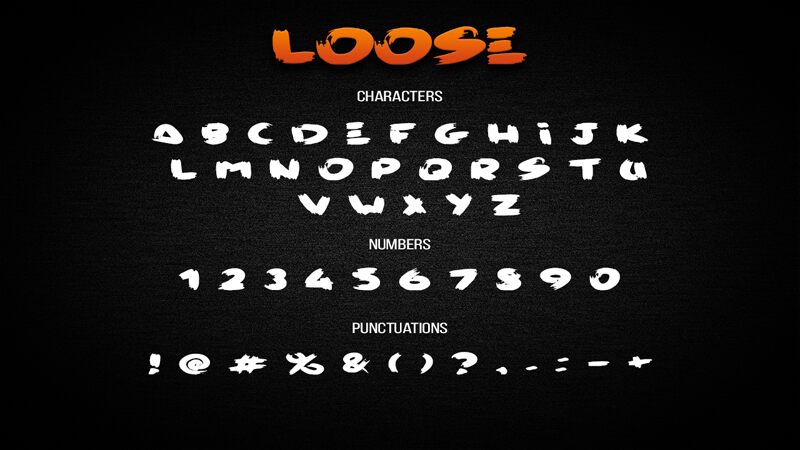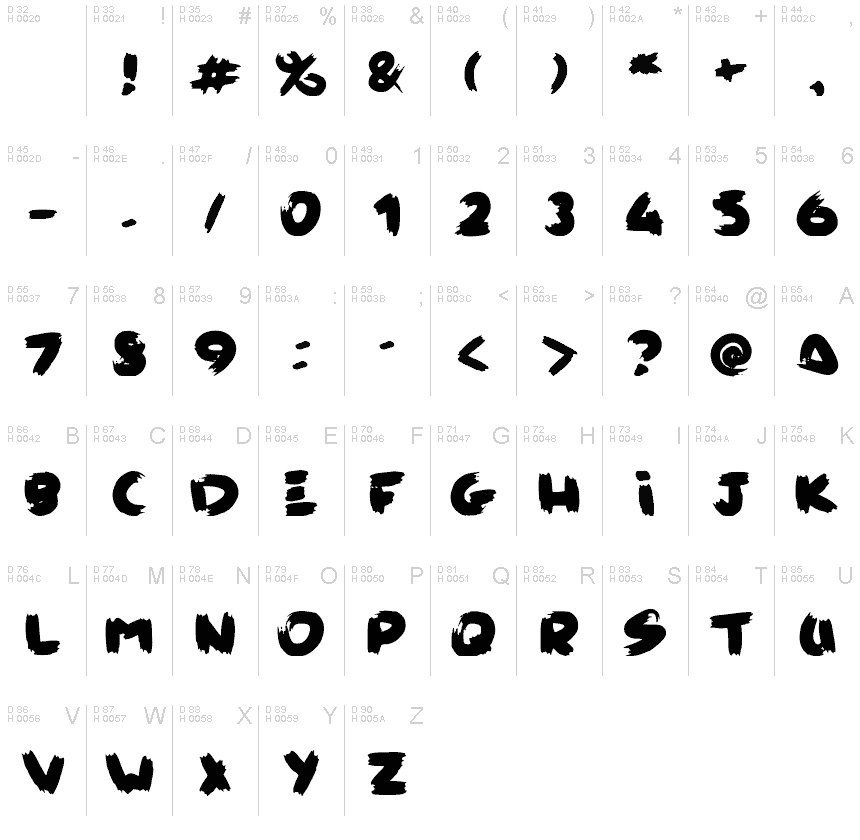
Loose
The Loose font, crafted by designer Jarek Frac, exudes an effortless, dynamic energy. Its bold, brush-like strokes convey a sense of spontaneity and movement, lending an expressive, artistic flair to any design. The irregular, uneven lines and organic shapes create a captivating, hand-crafted aesthetic, inviting viewers to engage with the text on a deeper level.
Loose's versatility shines through its ability to seamlessly transition between bold, attention-grabbing headlines and more subtle, harmonious body text. Its unique character lends itself well to a variety of applications, from eye-catching posters and packaging to editorial layouts and branding collateral, making it a versatile choice for designers seeking to infuse their work with a touch of raw, authentic style.
Simple font for all kinds of designs.